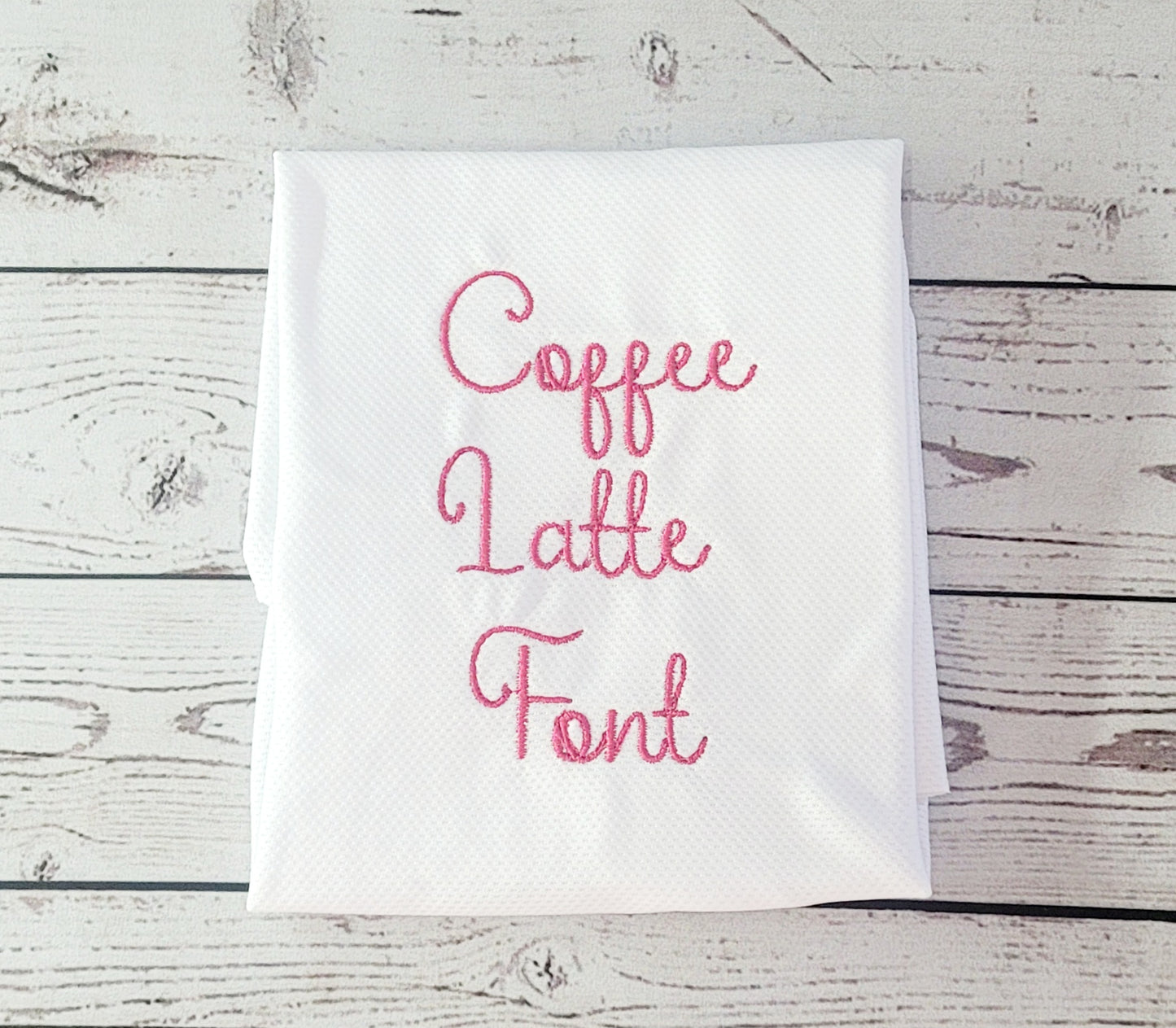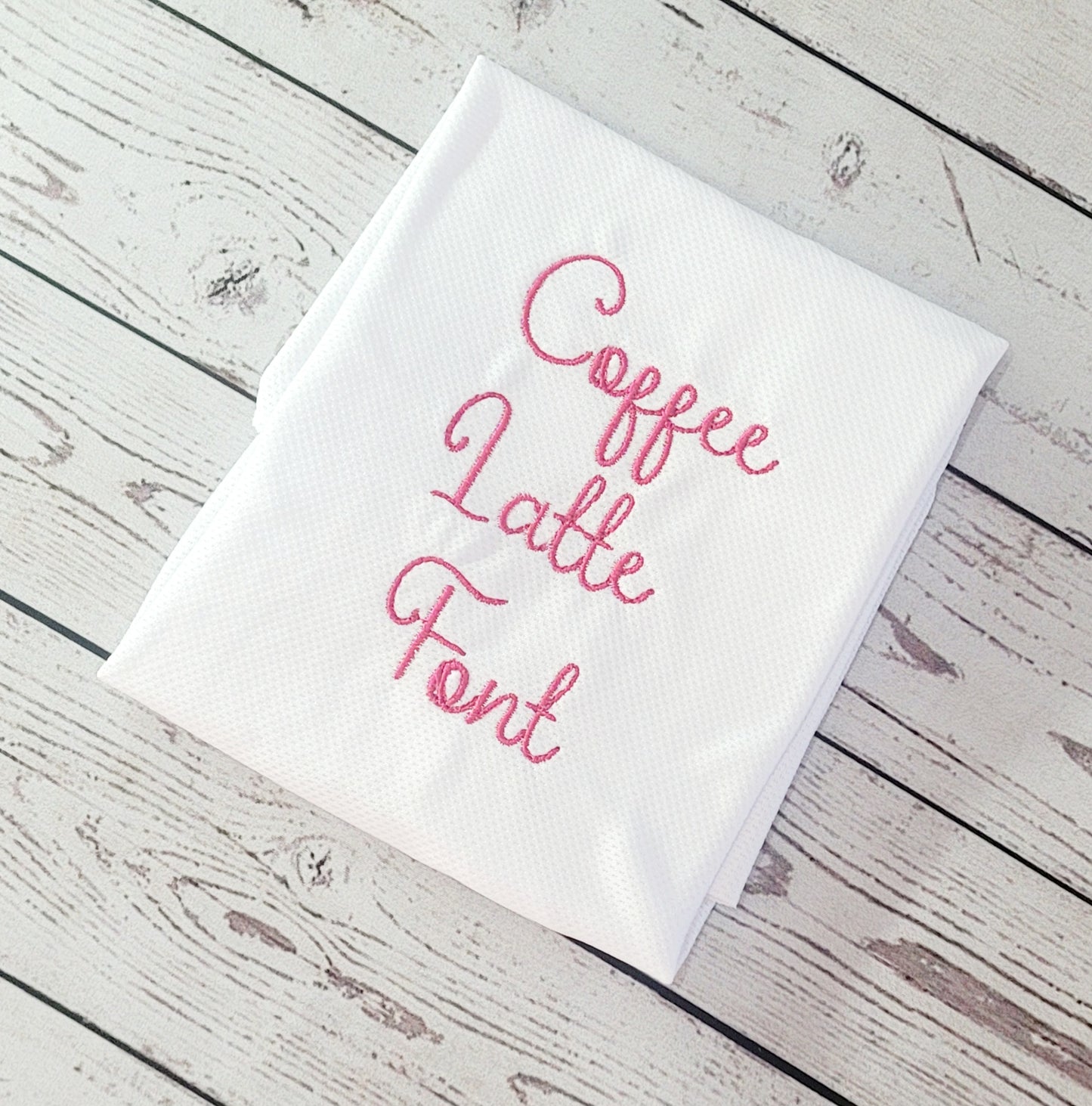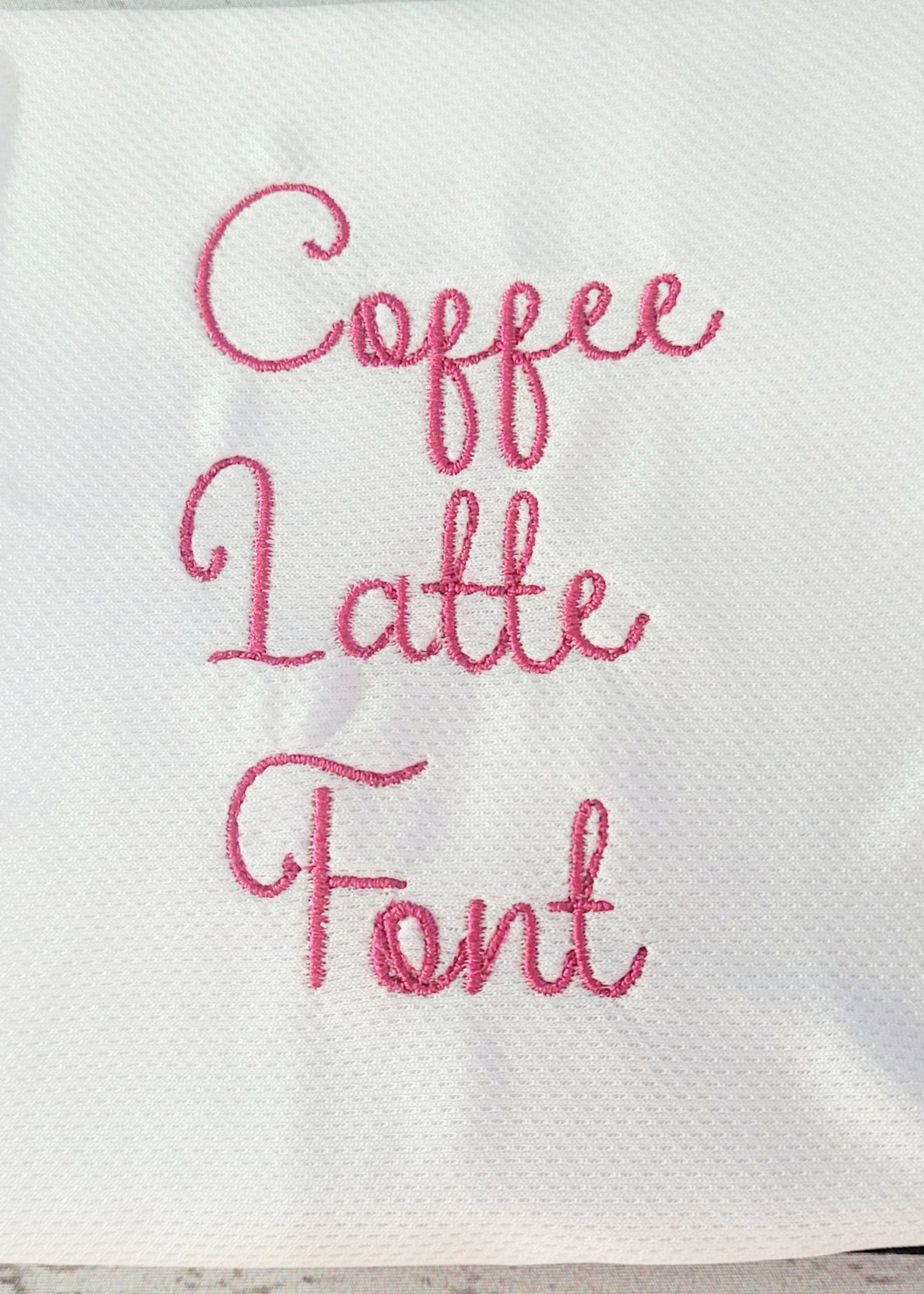
Coffee Latte Font Machine Embroidery File
Add a jolt of fun to your embroidery projects with our Coffee Latte Font Machine Embroidery File. This font is perfect for caffeine lovers, with a playful design that will bring a smile to your face. Stitch up quirky and unique creations with this unique embroidery file.